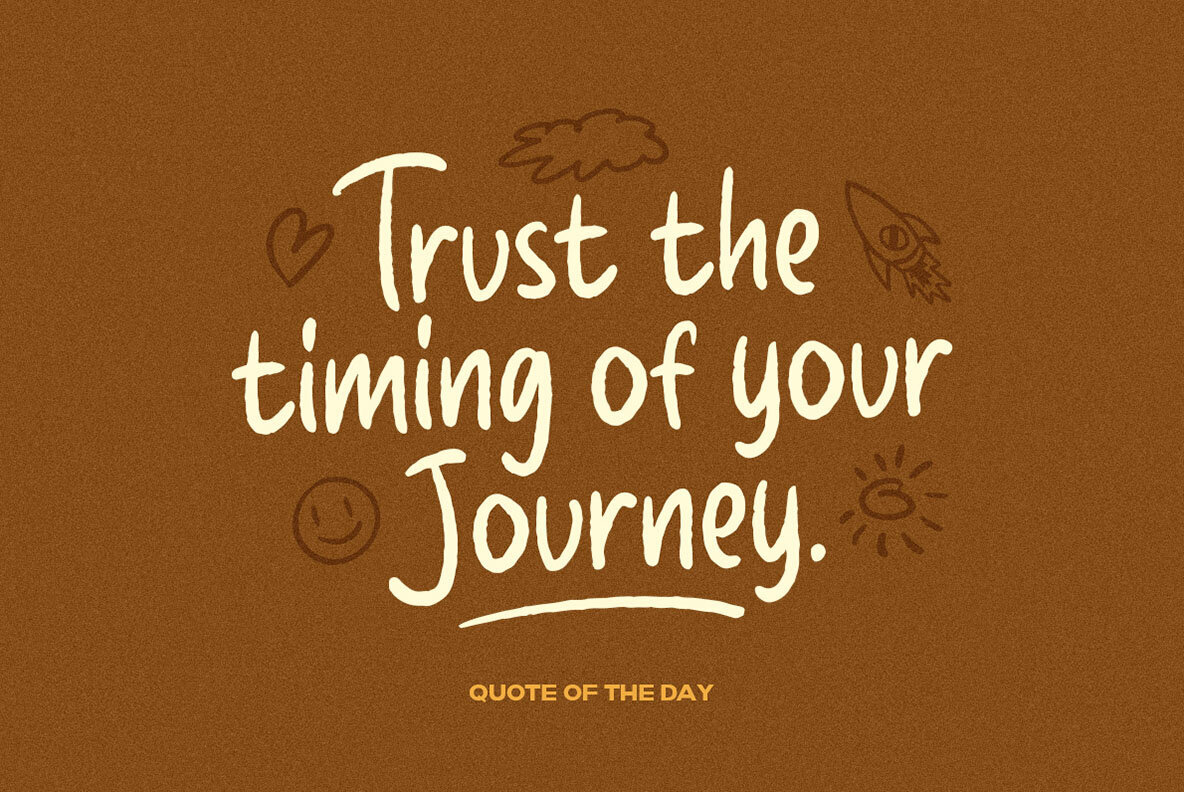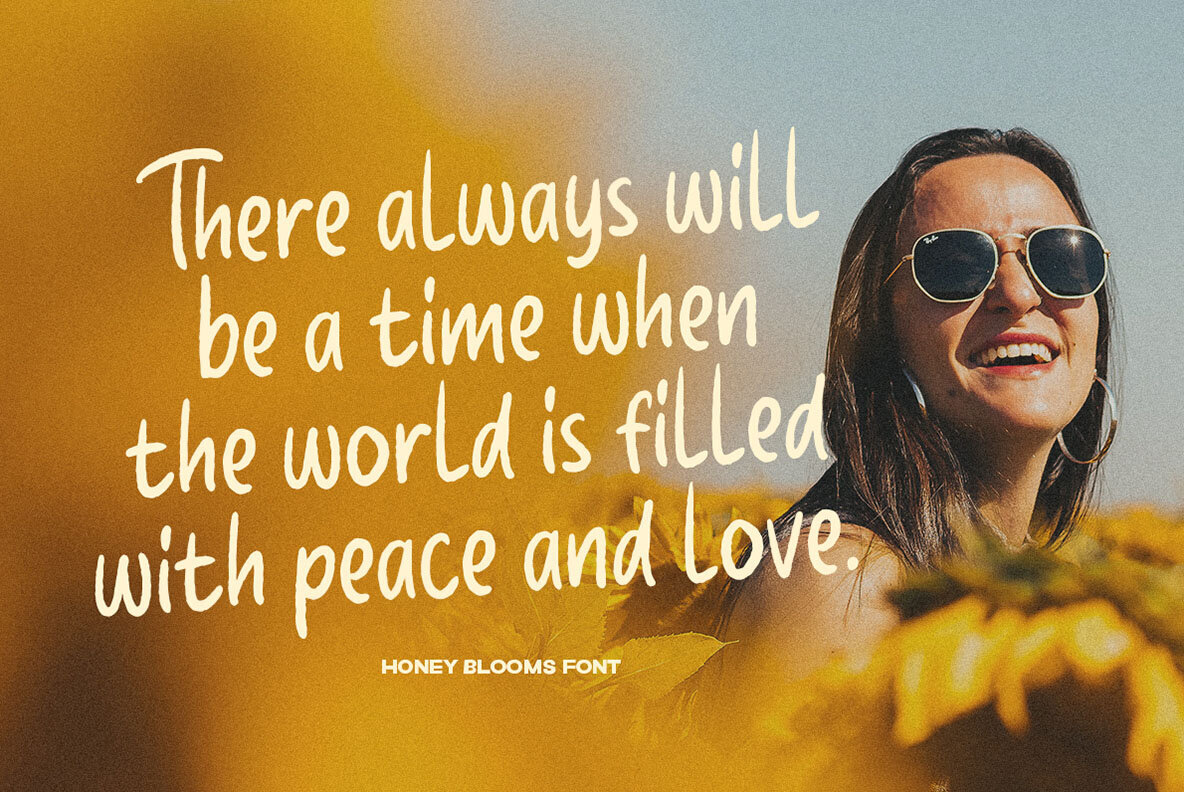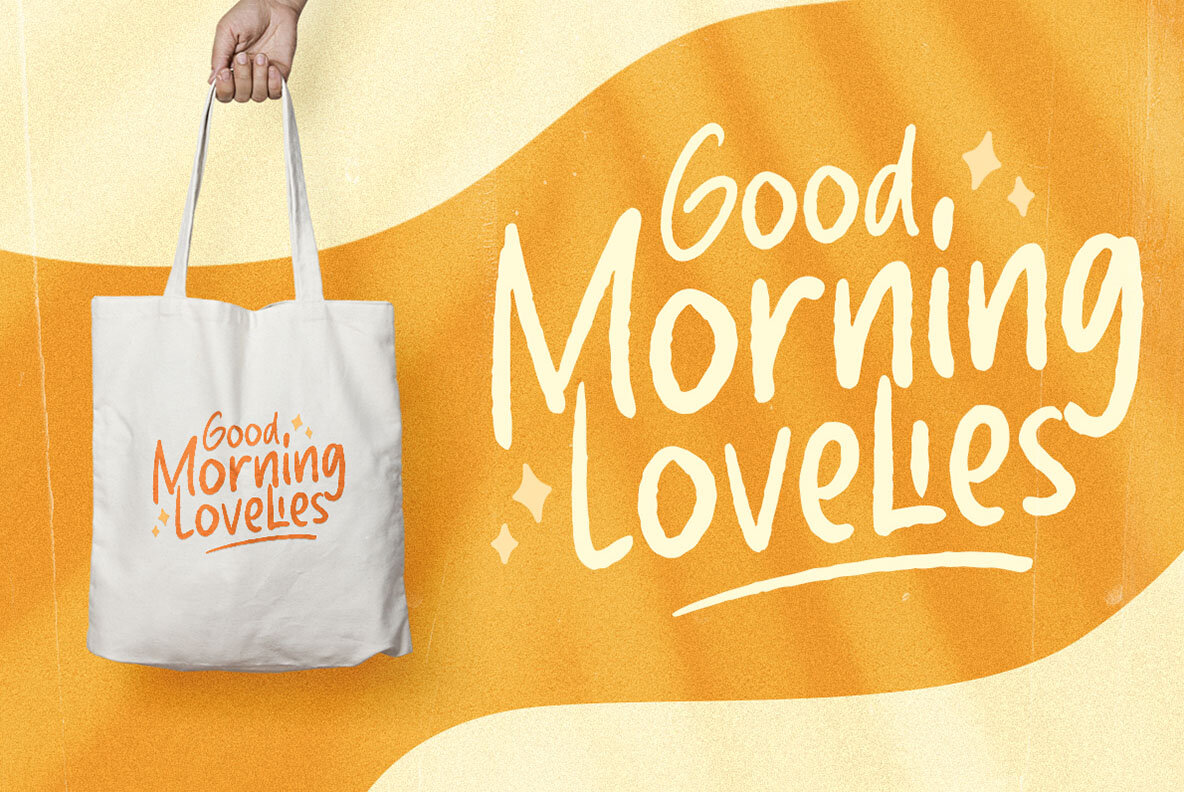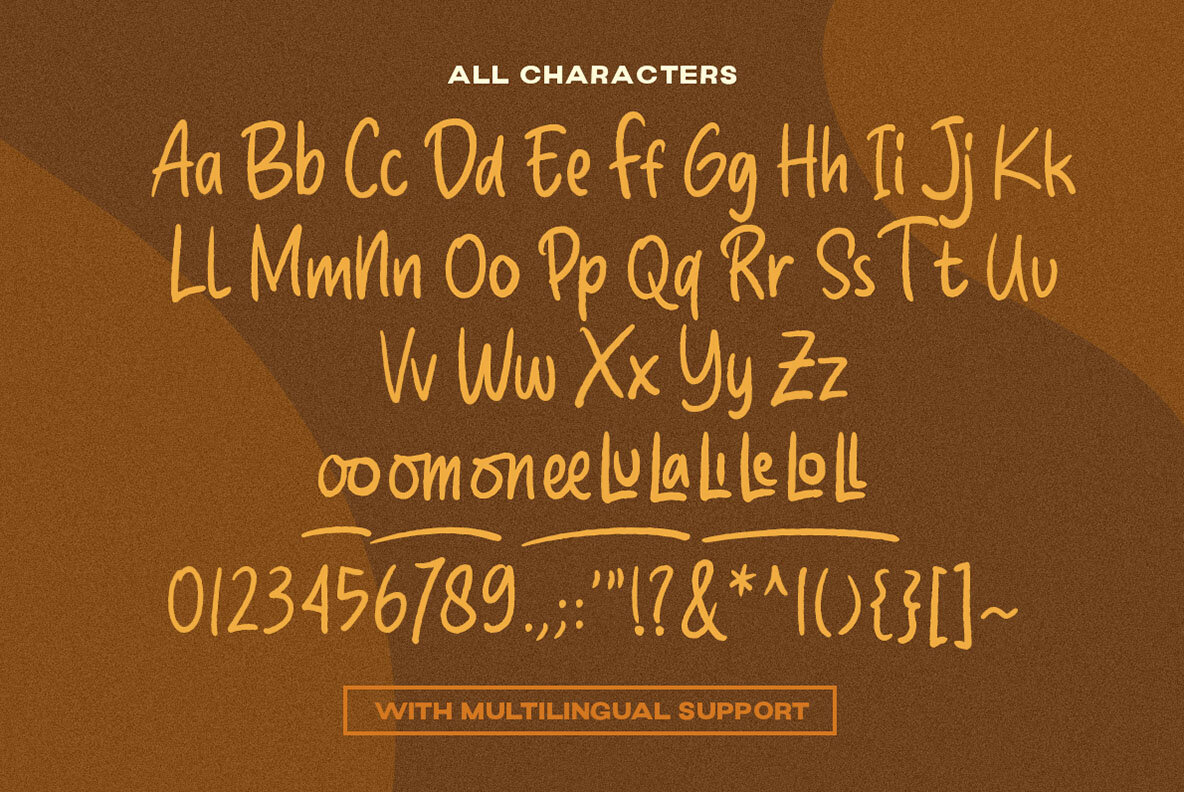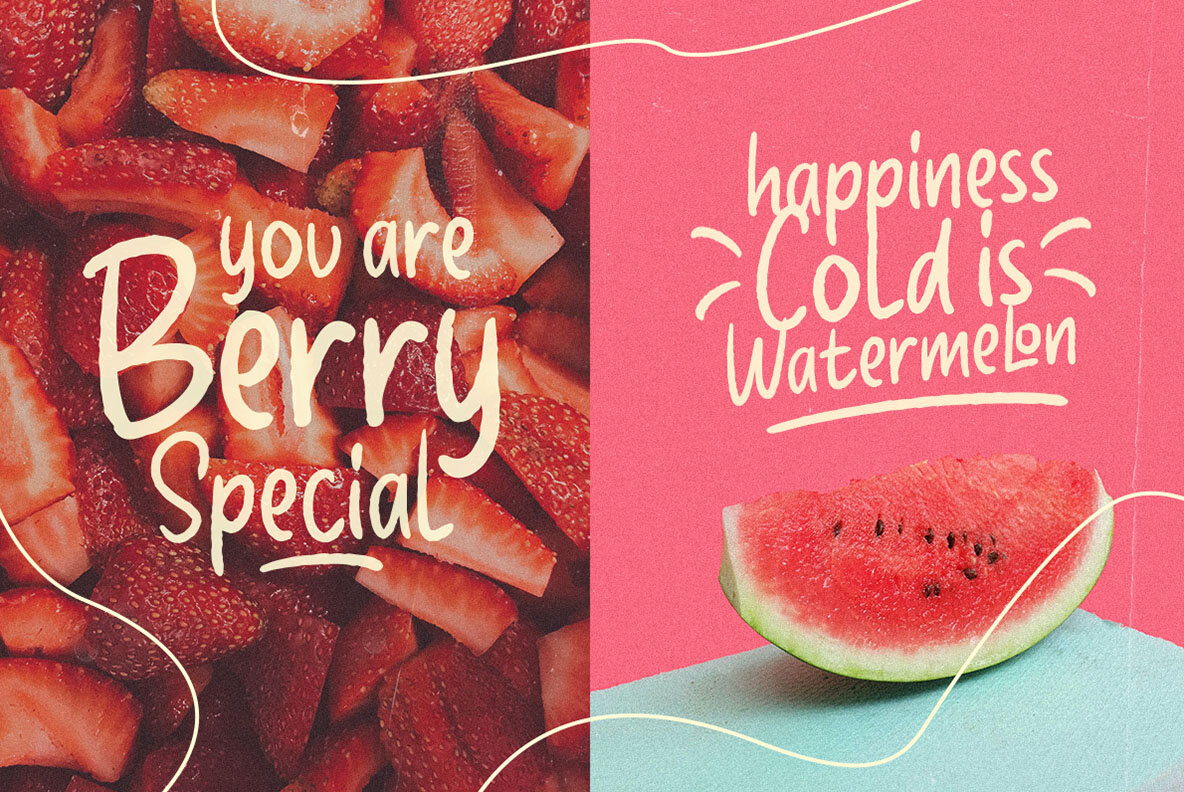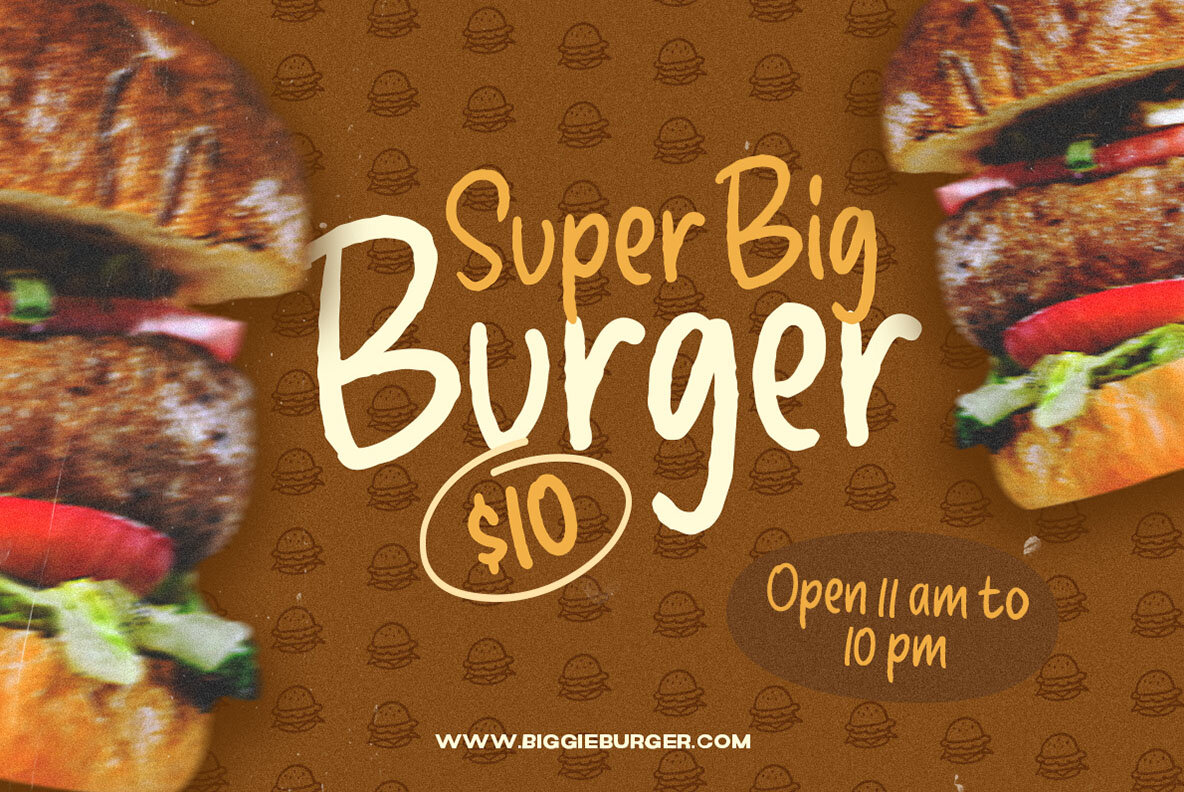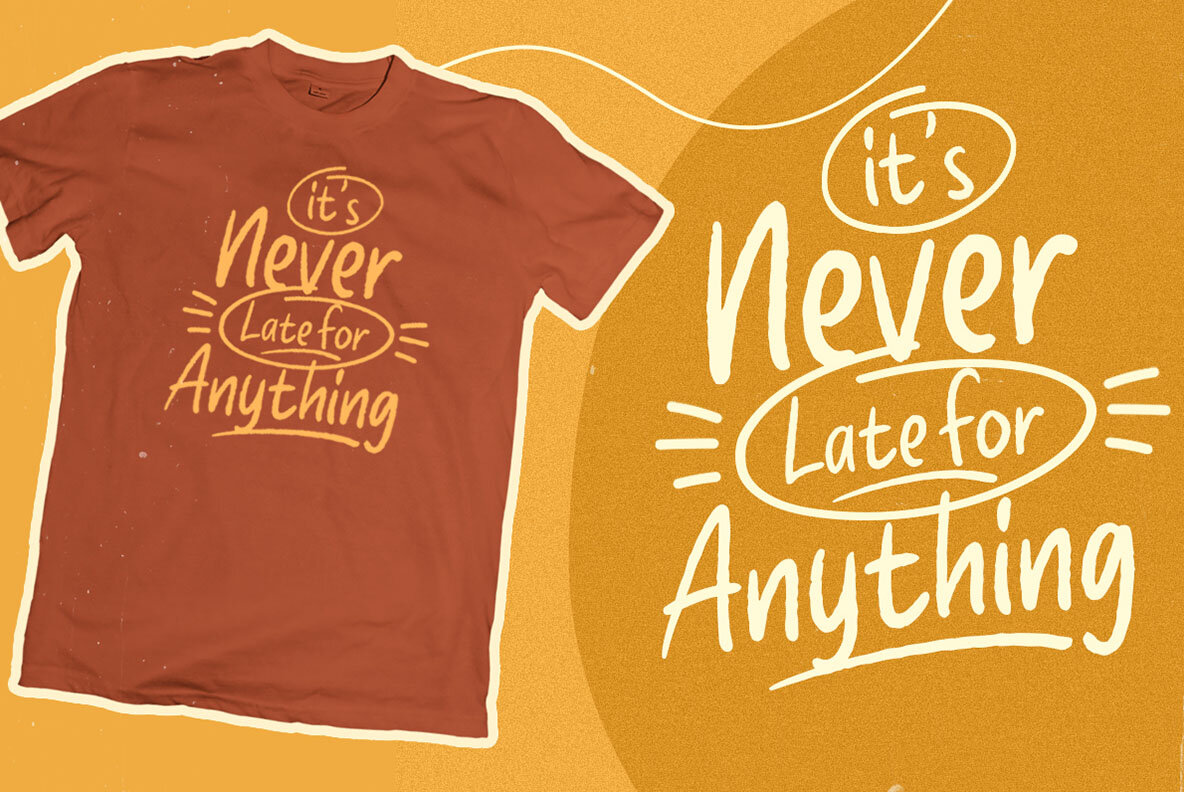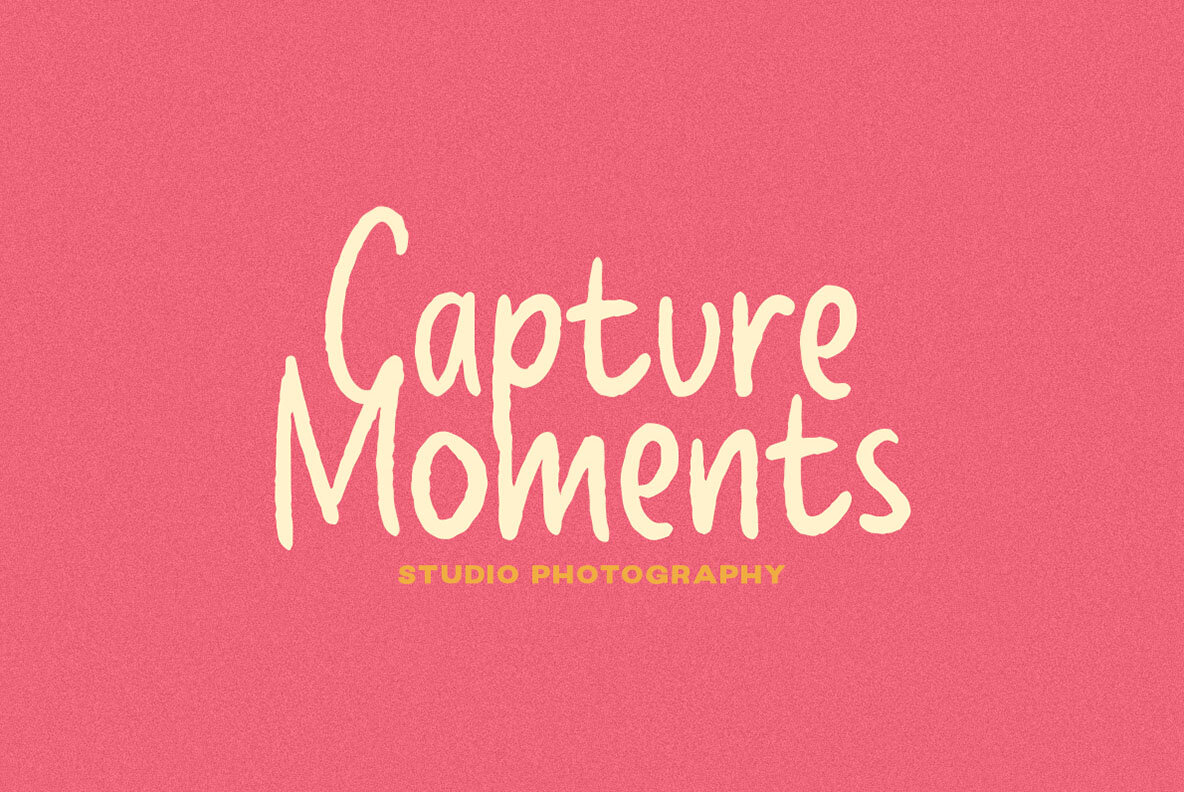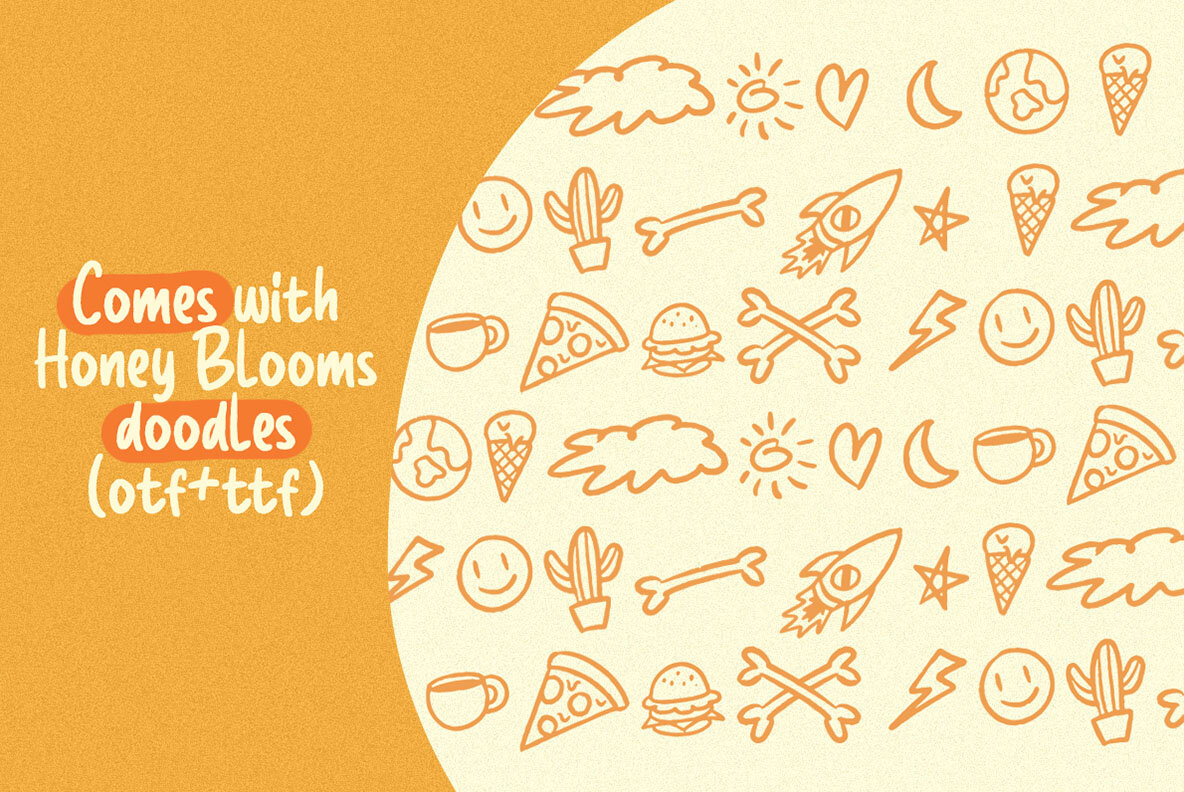
Honey Blooms Font
Honey Blooms is a charming handwritten font that captures the whimsy and playfulness of a marker-style. With its fluid strokes and organic feel, this font brings a touch of warmth and authenticity to your projects, especially in logo, and the other various formal forms such as invitations, labels, logos, magazines, books, greeting / wedding cards, packaging, fashion, make up, stationery, novels, labels or any type of advertising purpose. It comes with Extra Doodles (OTF & TTF Version). Features: We highly recommend using a program that supports OpenType features and Glyphs panels like many of Adobe apps and Corel Draw, so you can see and access all Glyph variations.